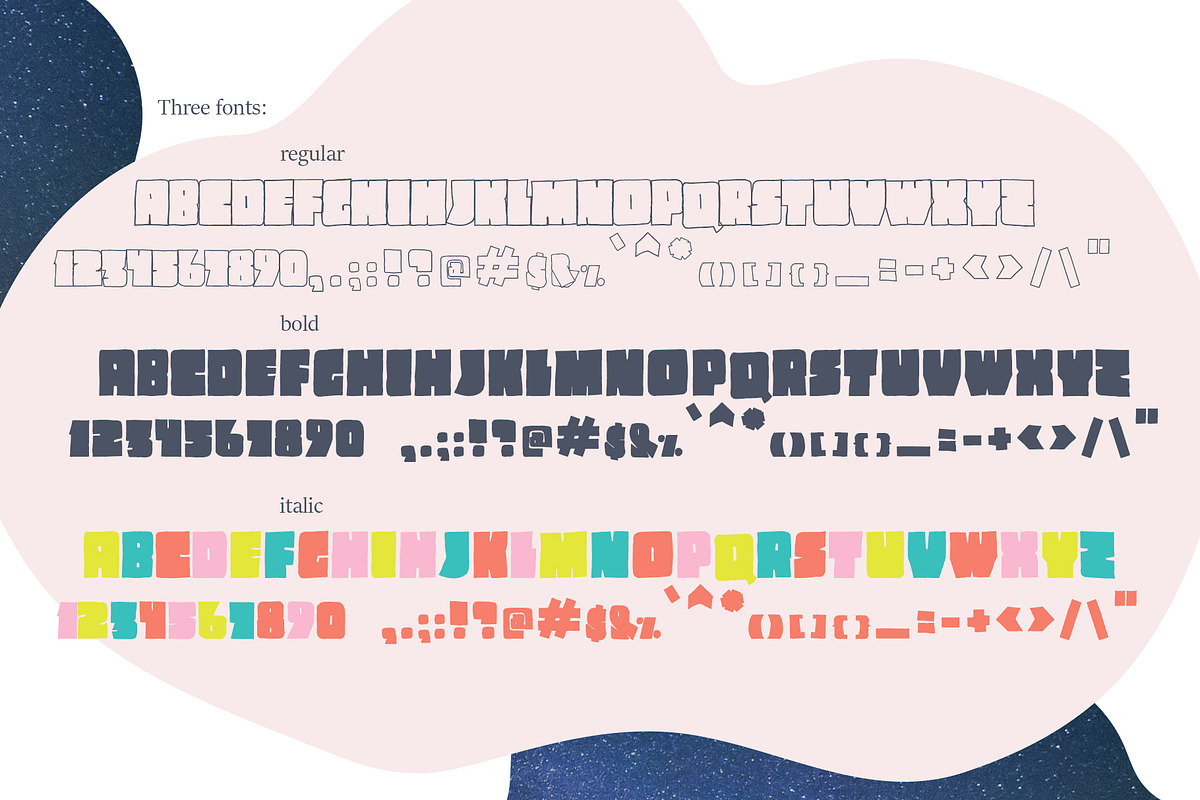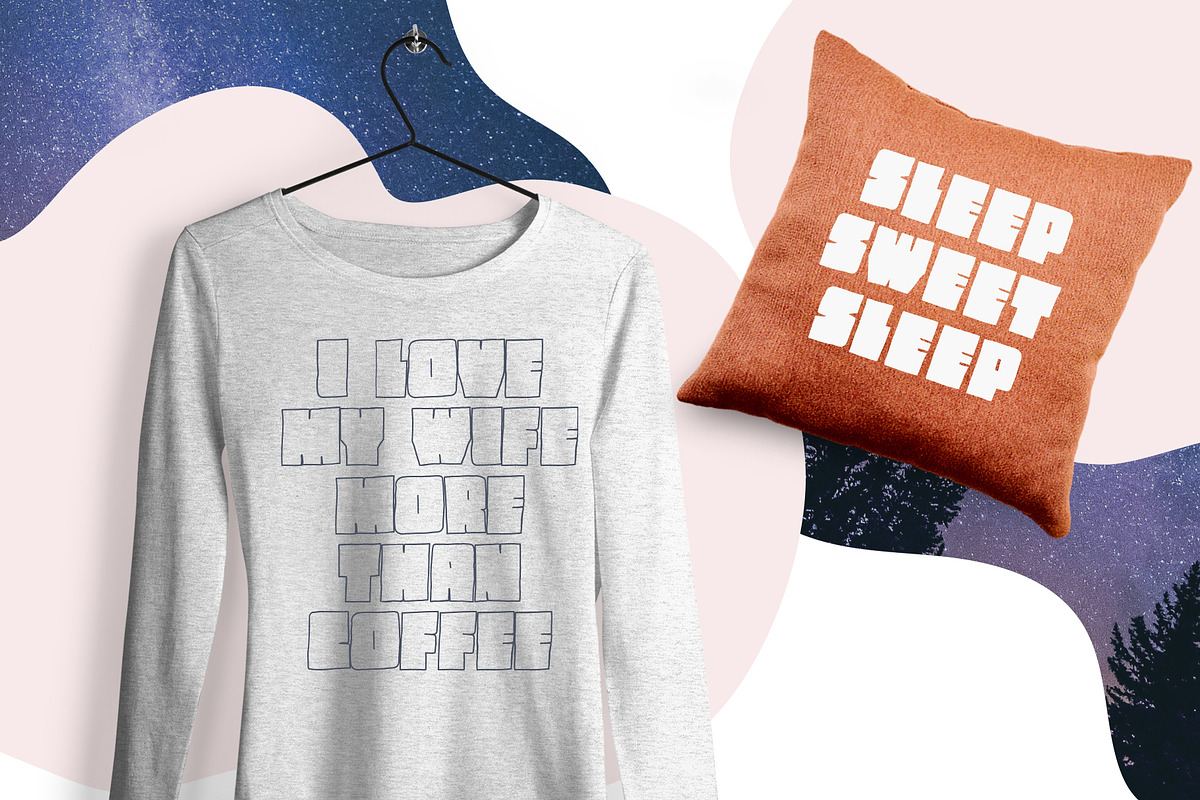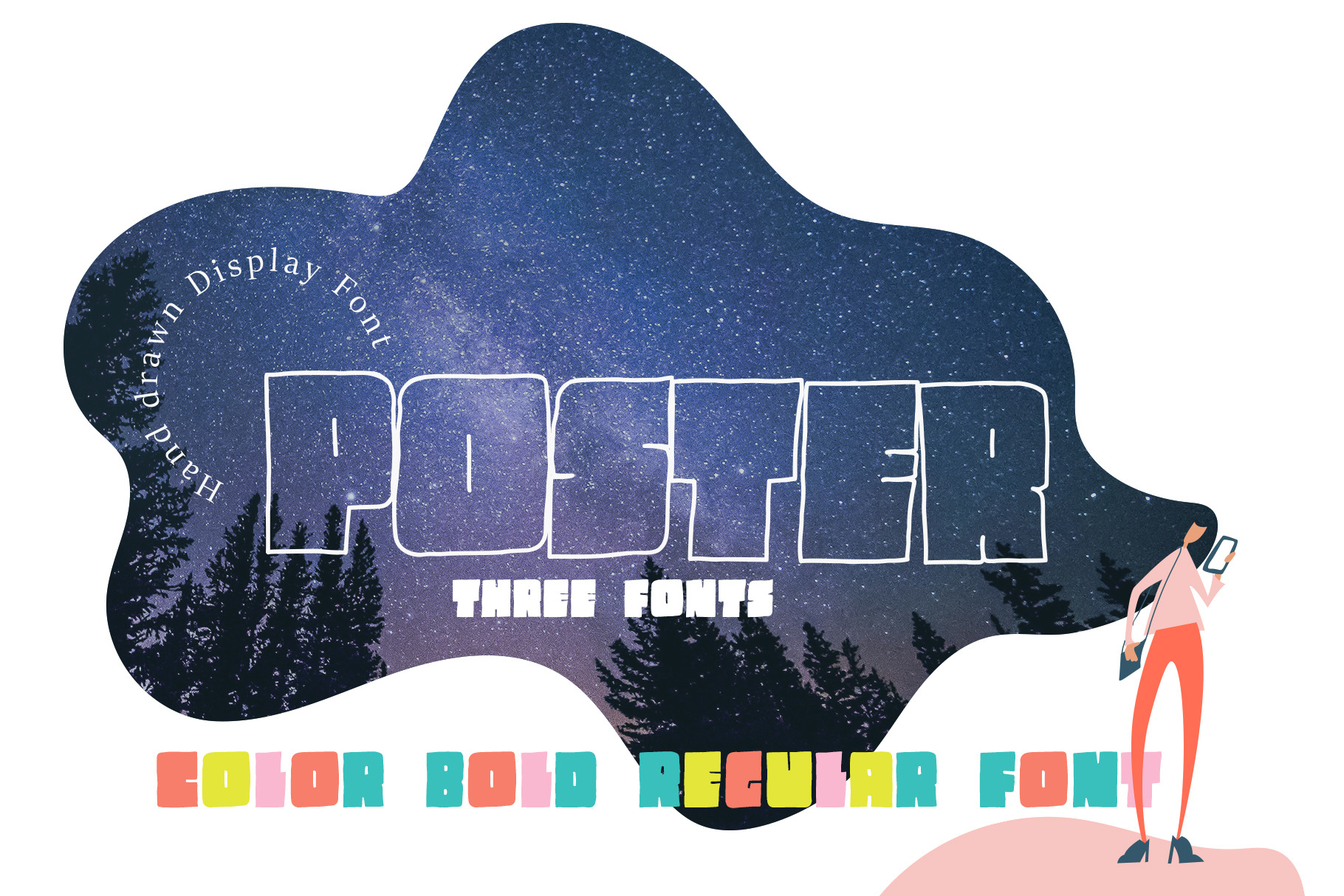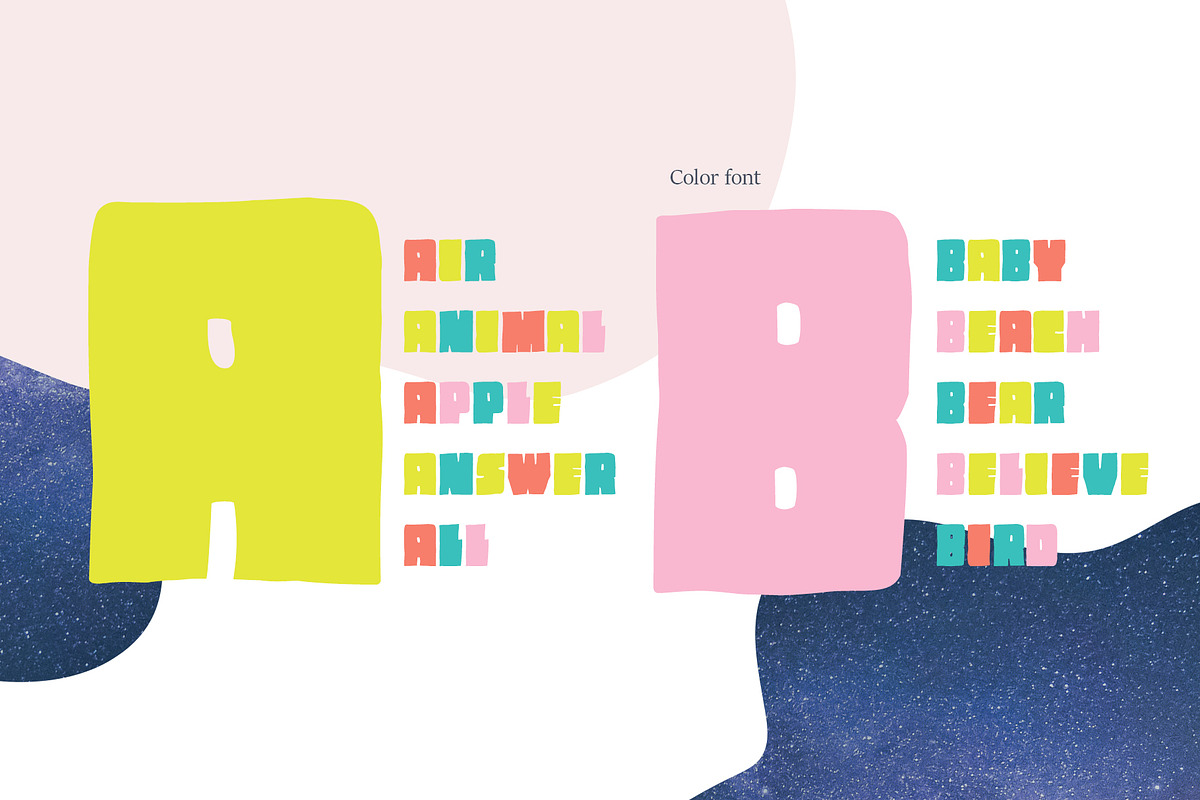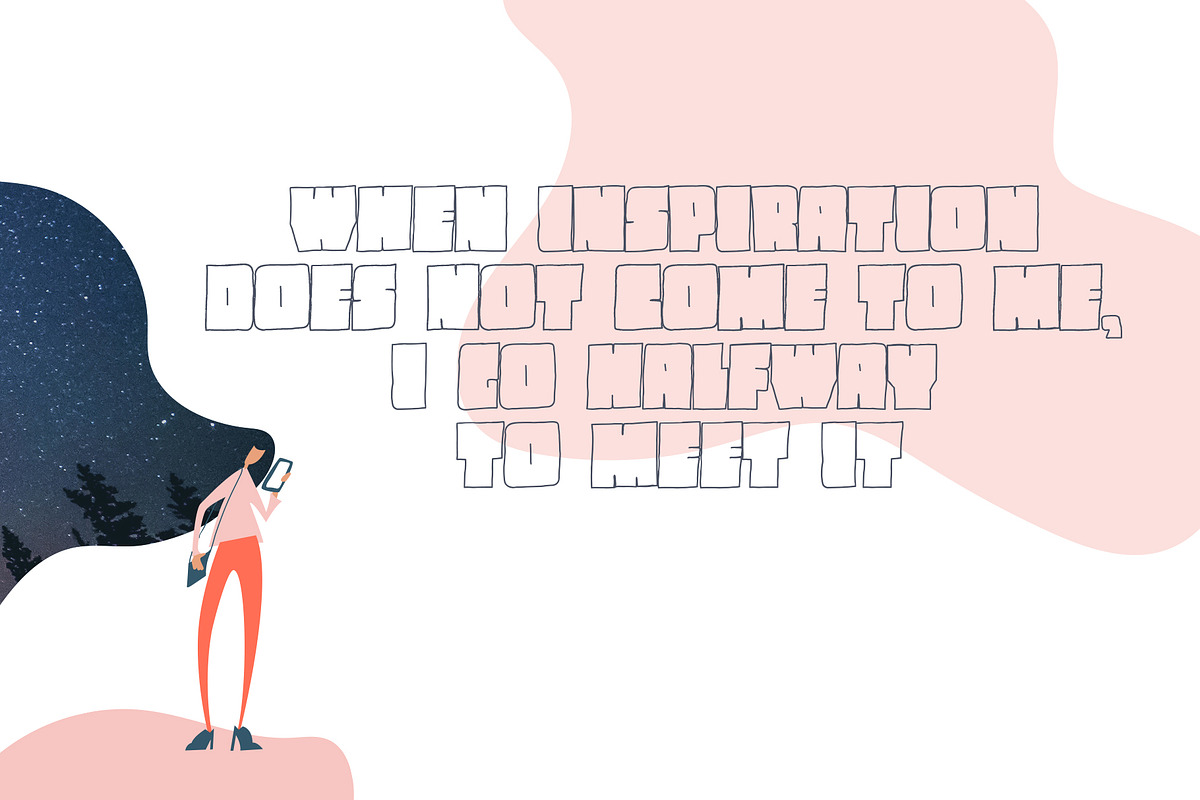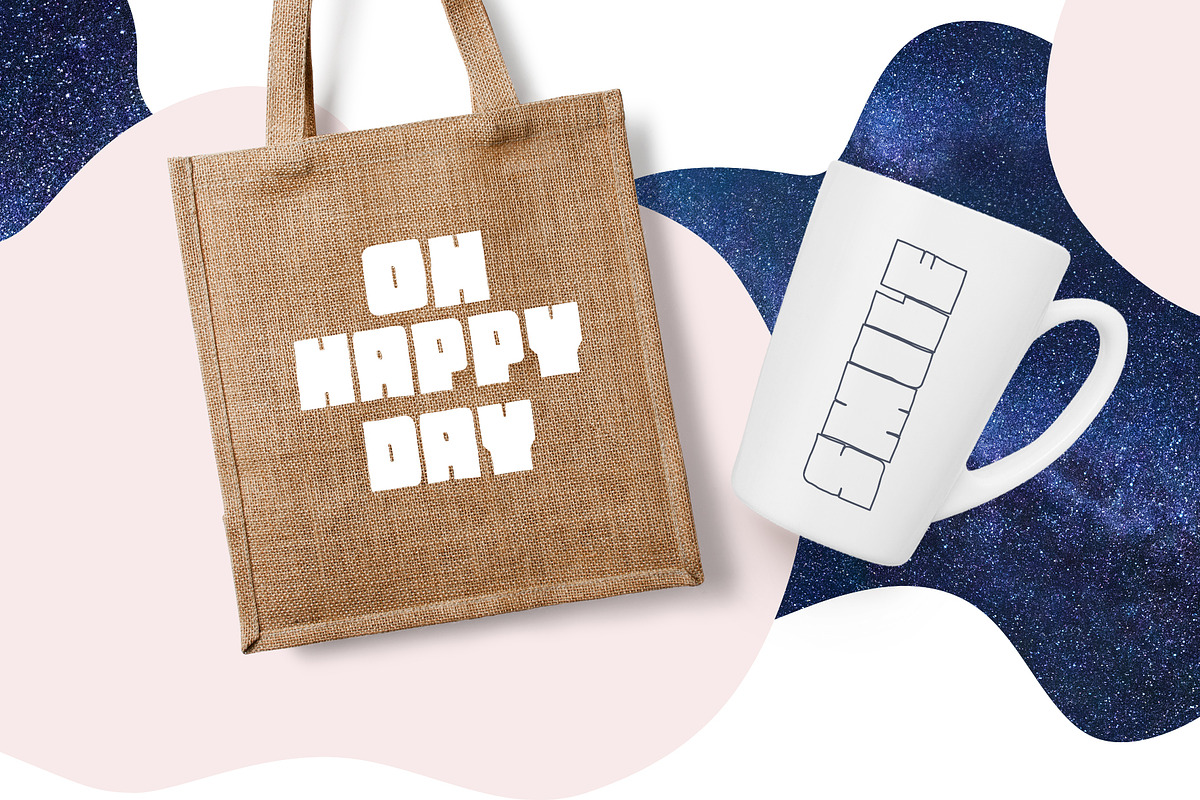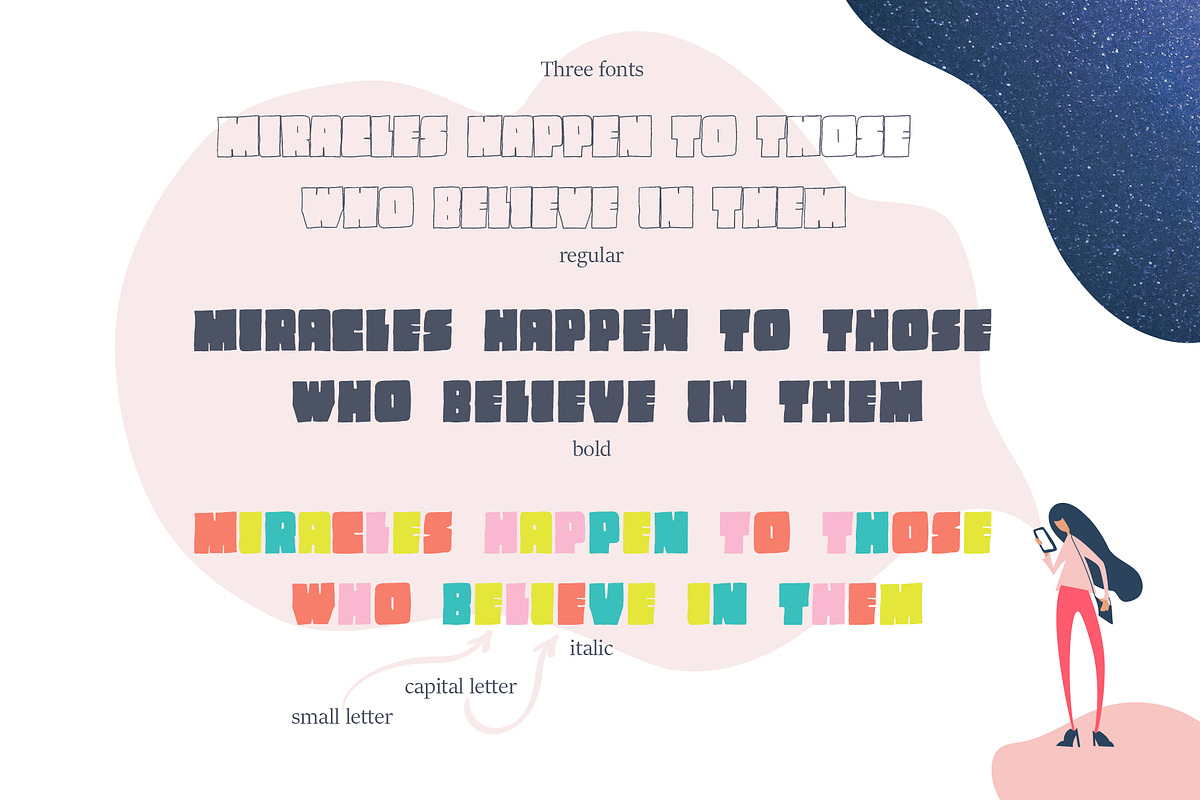
Poster Modern Scandinavian Font
A striking modern display font in three styles - Regular, Bold and Italic. Poster is the font that to help yourself realize your design.
Display Poster Modern Scandinavian Font is Regular, Bold and Italic font (color) which is well suited for the design of wedding books or photo overlays, holiday events, antique subjects, mug, pillows, t-shirts, etc.
PERFECT FOR
Titles for wedding albums, children books, scrapbook titles, greeting cards (Christmas, Birthday, Valentine other holidays), logos, short phrases, gift shops, presentation, Pinterest or Instagram.